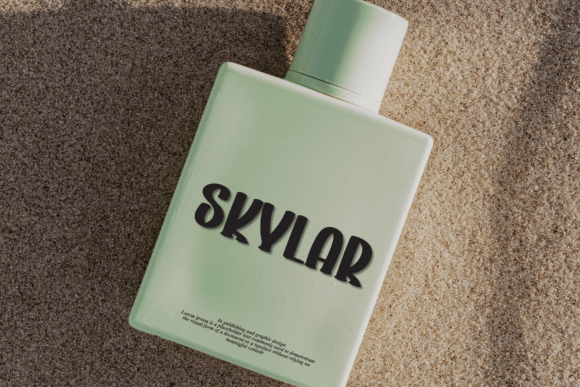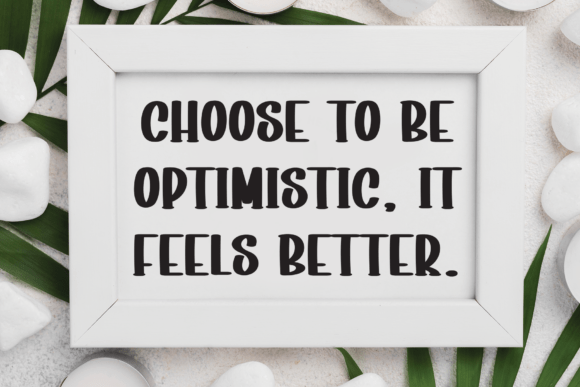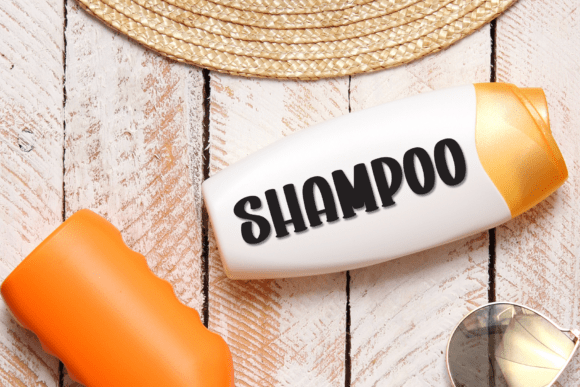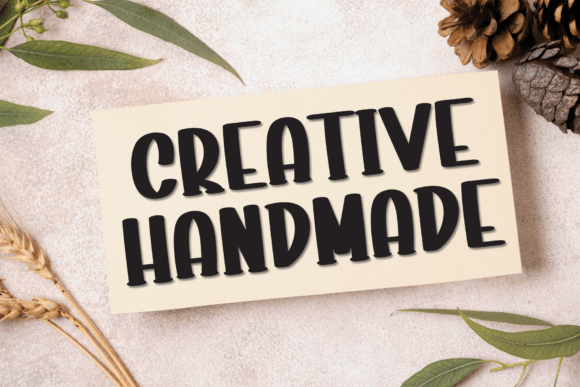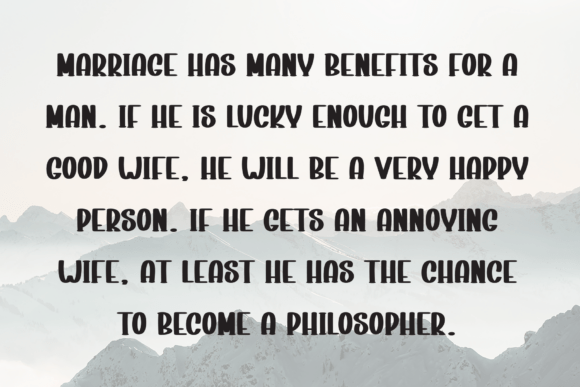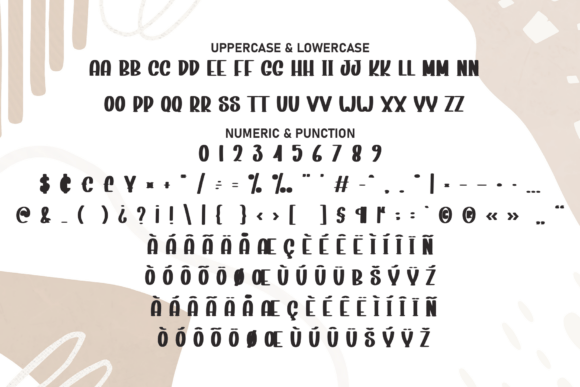
Discover the Joy of Design Minimalist Font: A Perfect Blend of Fun and Relaxation
Are you tired of using traditional fonts that lack personality and flair? Look no further than the Design Minimalist Font, a neat and casual display font that radiates fun and relaxation. With its clean lines and easygoing vibe, this cheerful typeface is perfect for summer posters, event flyers, and playful branding. In this article, we’ll dive into the world of Design Minimalist Font and explore its features, benefits, and uses.
What is Design Minimalist Font?
Design Minimalist Font is a modern, sans-serif font that embodies the spirit of minimalism while exuding a carefree and breezy feel. Its clean lines, simple shapes, and rounded edges create a friendly and approachable appearance that’s perfect for designs that require a laid-back vibe. Whether you’re creating a summer poster, a fun event flyer, or a playful brand identity, Design Minimalist Font is the perfect choice.
Key Features of Design Minimalist Font
- Clean Lines: Design Minimalist Font features clean lines that give it a crisp and modern appearance.
- Easygoing Vibe: The font’s rounded edges and simple shapes create a friendly and approachable feel.
- Versatile: Design Minimalist Font is perfect for a wide range of designs, from summer posters to event flyers and playful branding.
- Legible: The font’s clear and simple design makes it easy to read, even at small sizes.
Benefits of Using Design Minimalist Font
So, why choose Design Minimalist Font for your next design project? Here are just a few benefits of using this amazing font:
- Adds a Personal Touch: Design Minimalist Font brings a personal touch to your designs, making them more relatable and engaging.
- Perfect for Summer and Fun Designs: The font’s breezy and laid-back feel makes it perfect for summer posters, event flyers, and playful branding.
- Easy to Read: Design Minimalist Font is clear and legible, making it easy for your audience to read and understand your message.
- Versatile: The font can be used for a wide range of designs, from digital to print.
Use Cases for Design Minimalist Font
Design Minimalist Font is perfect for a wide range of designs, including:
- Summer Posters: Create eye-catching summer posters that capture the spirit of the season with Design Minimalist Font.
- Event Flyers: Use Design Minimalist Font to create fun and playful event flyers that grab attention.
- Playful Branding: Add a personal touch to your brand identity with Design Minimalist Font.
- Digital Designs: Use Design Minimalist Font for digital designs, such as social media graphics, email newsletters, and website headers.
Tips for Using Design Minimalist Font
Here are a few tips for using Design Minimalist Font effectively:
- Pair with Other Fonts: Pair Design Minimalist Font with other fonts to create a unique and interesting contrast.
- Experiment with Colors: Try out different colors to find the perfect combination that complements your design.
- Keep it Simple: Don’t overcomplicate your design – keep it simple and clean to let Design Minimalist Font shine.
In conclusion, Design Minimalist Font is a perfect choice for designers and crafters looking for a fun and playful font that radiates relaxation and joy. With its clean lines, easygoing vibe, and versatility, this font is perfect for a wide range of designs, from summer posters to playful branding. So why not give Design Minimalist Font a try and add a personal touch to your next design project?